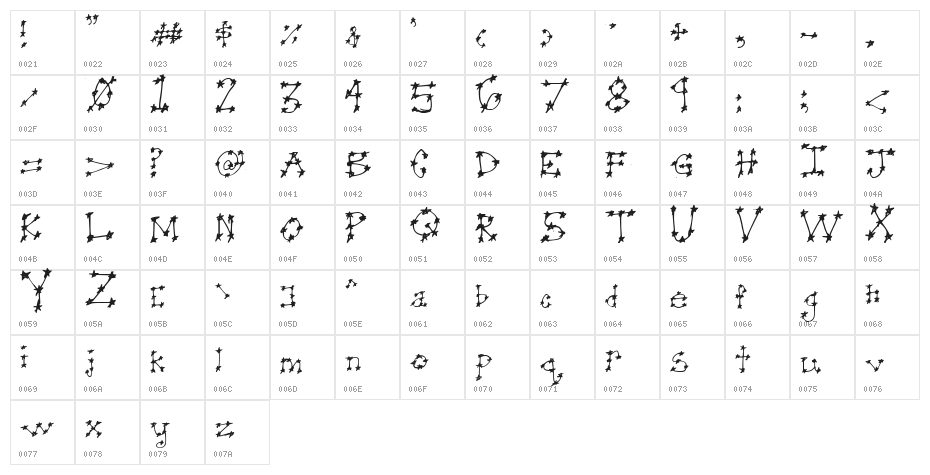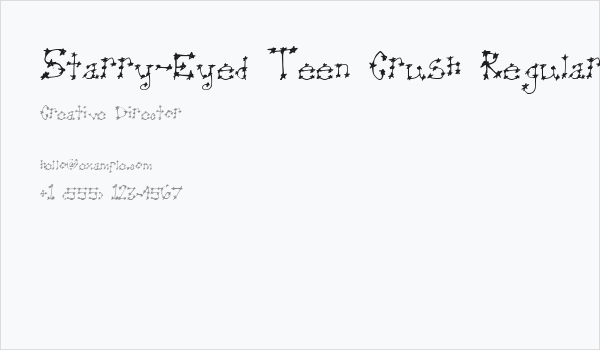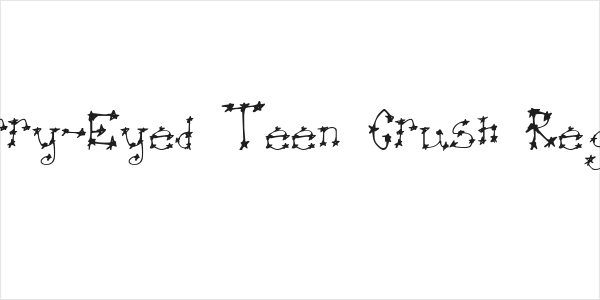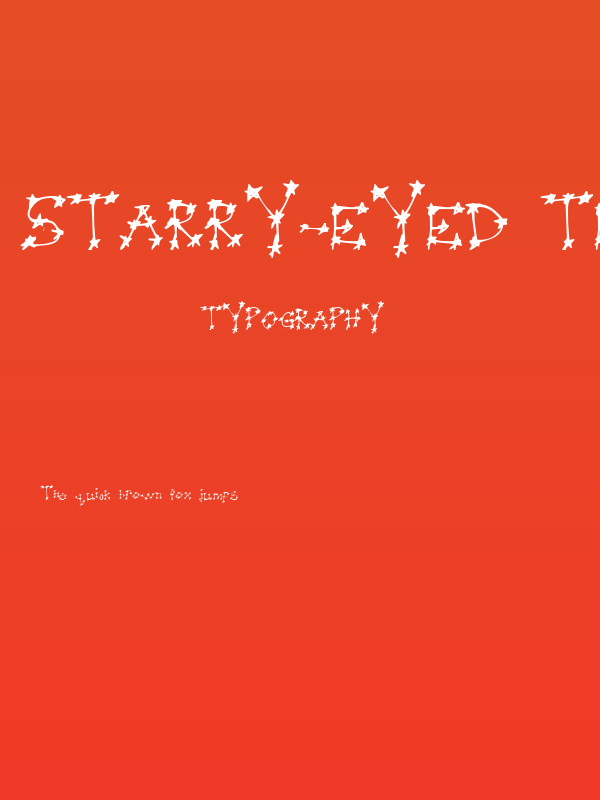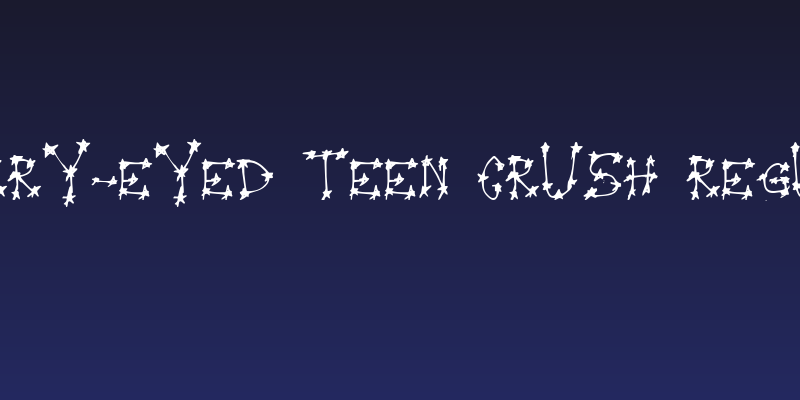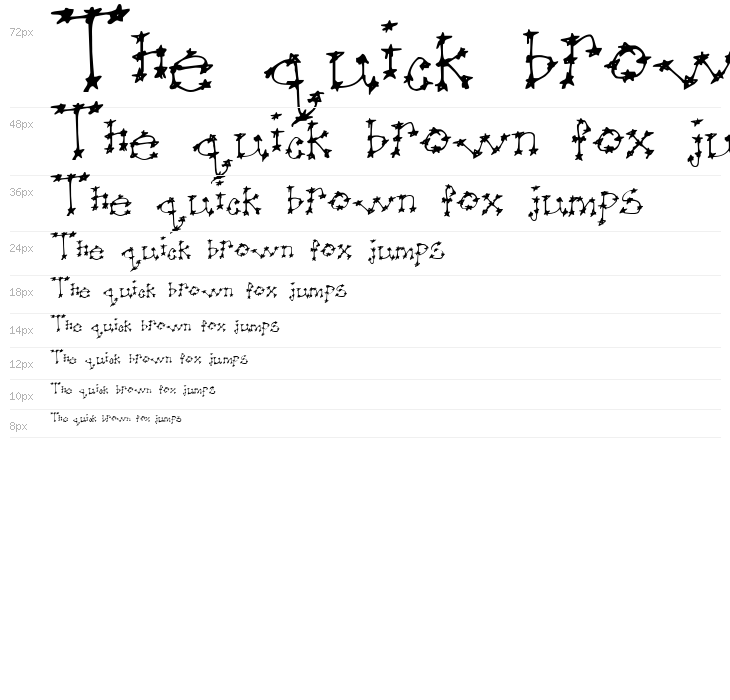
Starry-Eyed Teen Crush Regular Font
Starry-Eyed Teen Crush Regular Description
This whimsical and playful font features a unique design where each character is adorned with star-like embellishments. The letters are interconnected with a vine-like structure, giving it a decorative and enchanting appearance. The font maintains a consistent style across uppercase, lowercase, numbers, and special characters, making it suitable for creative and artistic projects. Its distinct and eye-catching design is perfect for capturing attention and adding a touch of magic to any text.
| Proposed Projects | Ideal for greeting cards, children's book covers, party invitations, and whimsical branding. |